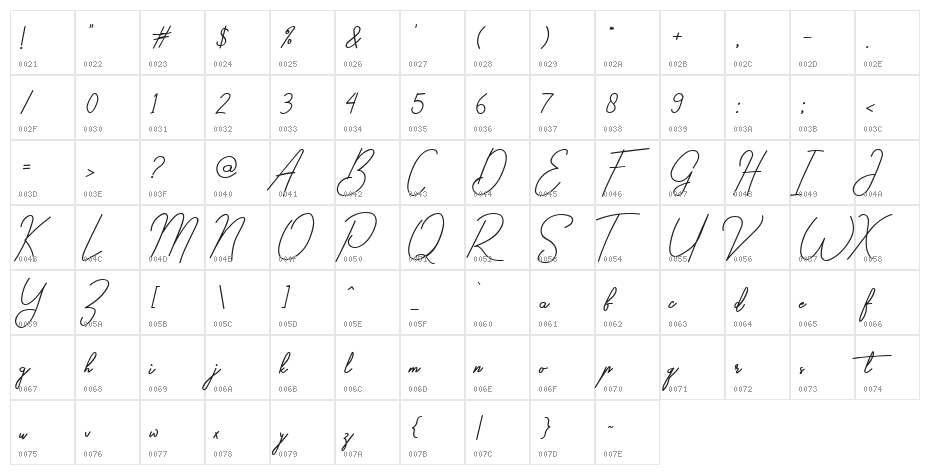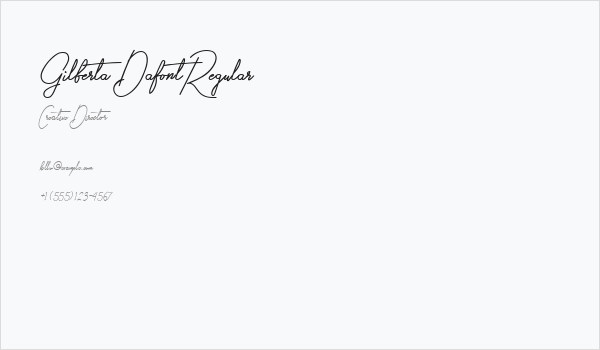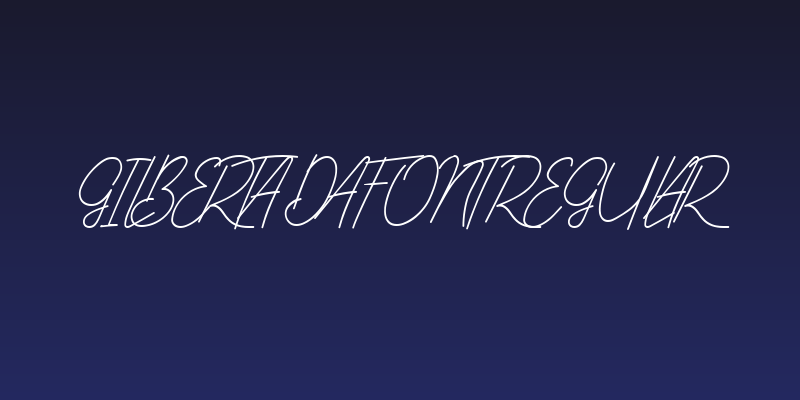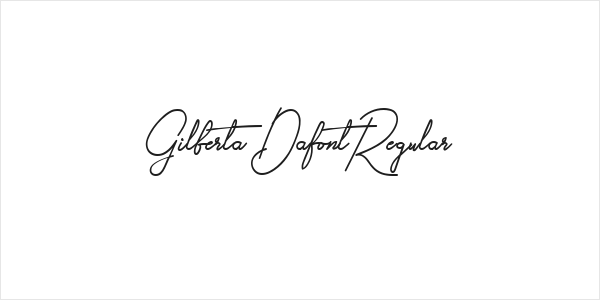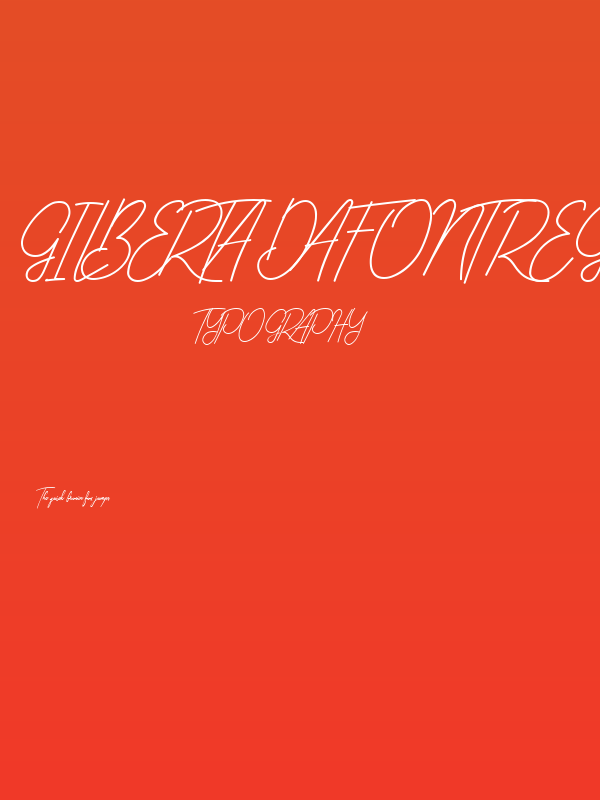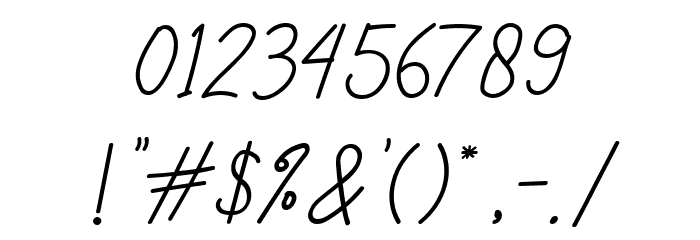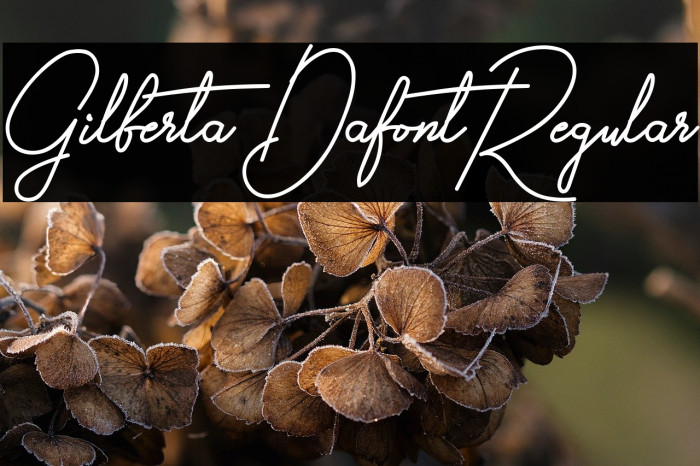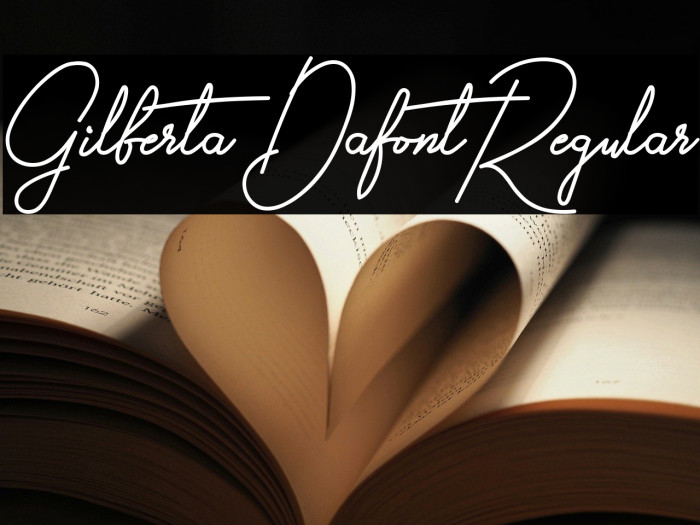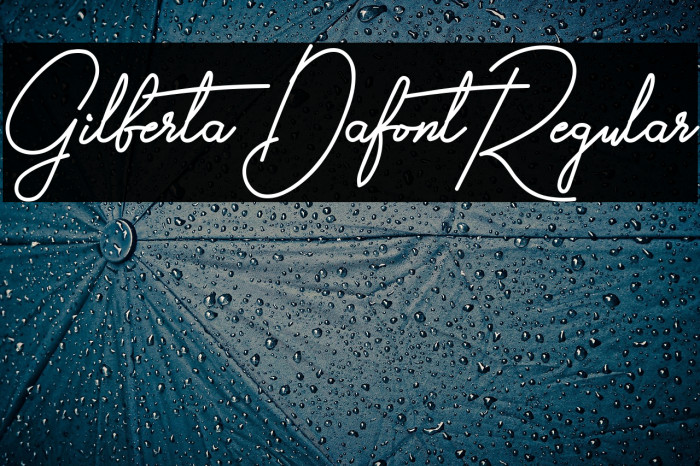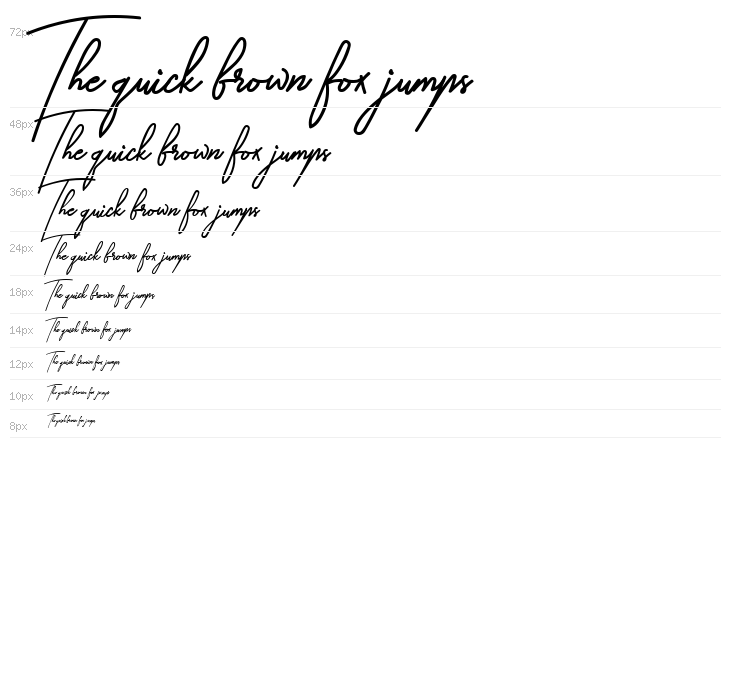
Gilberta Dafont Regular Font
Gilberta Dafont Regular Description
This font features a flowing, cursive style with elegant, elongated letterforms that give it a sophisticated and artistic appearance. The uppercase letters are particularly tall and slender, with graceful curves and loops that add a sense of movement and fluidity. The lowercase letters maintain a consistent style, with smooth connections between characters that enhance the script-like quality. The numerals are designed to complement the letters, maintaining the same elegant and flowing aesthetic. Special characters are included, matching the overall style with a touch of flair. This font is ideal for projects that require a personal, handwritten touch, such as invitations, greeting cards, or branding materials.
| Overall Style | Elegant, Artistic |
| Use Case | Invitations, Branding, Artistic projects |
| Proposed Projects | Ideal for wedding invitations, personal branding, greeting cards, and artistic projects. |